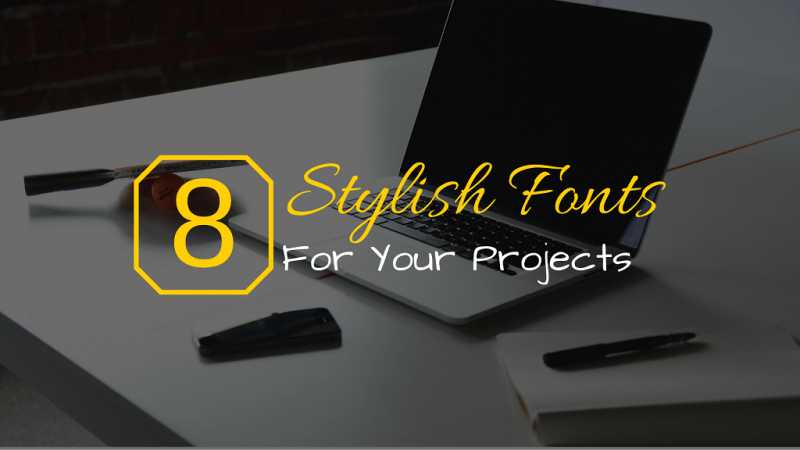
Download 8 Stylish Fonts to Make Your Projects Absolutely Stunning
Download 8 Stylish Fonts To Make Your Projects Absolutely Stunning
Looking to download stylish fonts to use in your projects? Well, we have researched & reviewed few extremely cool, stylish and pretty fonts which can be used by any professional or student. If your project is any corporate presentation, advertisement banners for print or digital medium or any school / college projects – these pretty […]